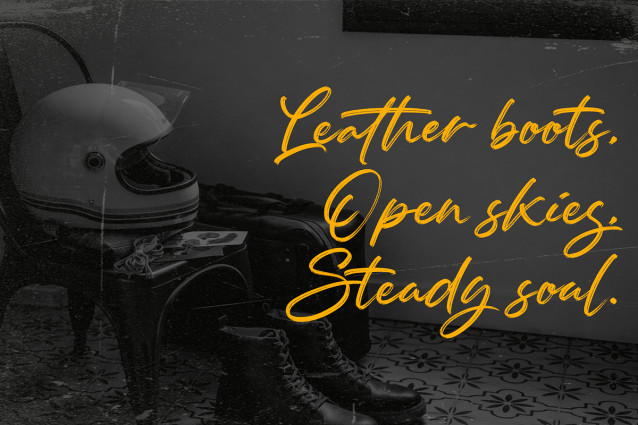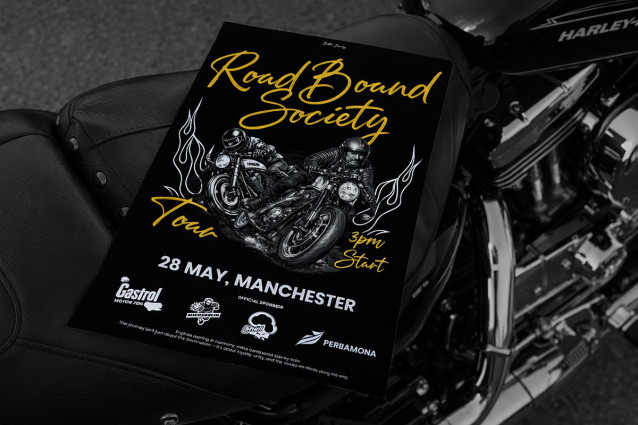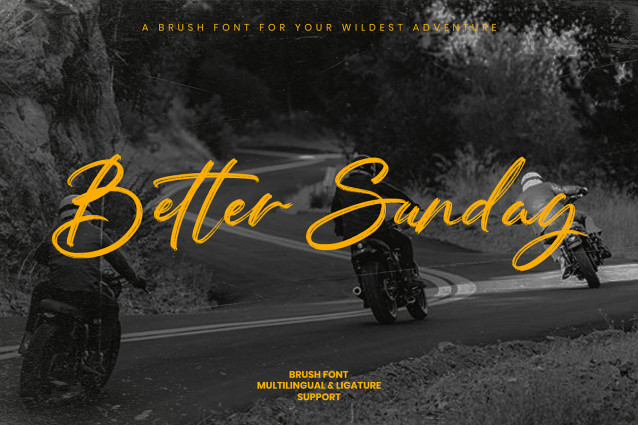
Better Sunday Script Font
Better Sunday Script Font is a bold brush script font made for the open road full of movement, grit, and freedom. Its hand-painted strokes carry the feeling of throttle, wind, and late-night rides, turning every word into a banner of adventure. Use it when you want your typography to feel loud, fearless, and unapologetically alive.
With its textured lines and energetic rhythm, Better Sunday keeps a balance between wild and readable. The letters connect smoothly, ligatures keep the flow natural, and the overall look brings a rugged, adventurous spirit to any design from posters and event flyers to logos and statement quotes.